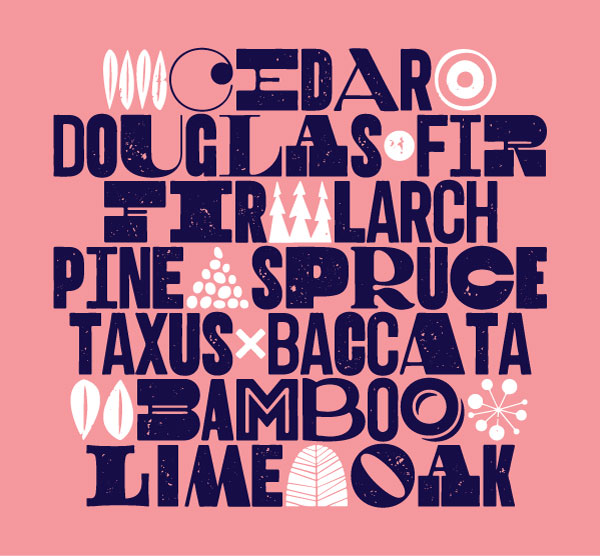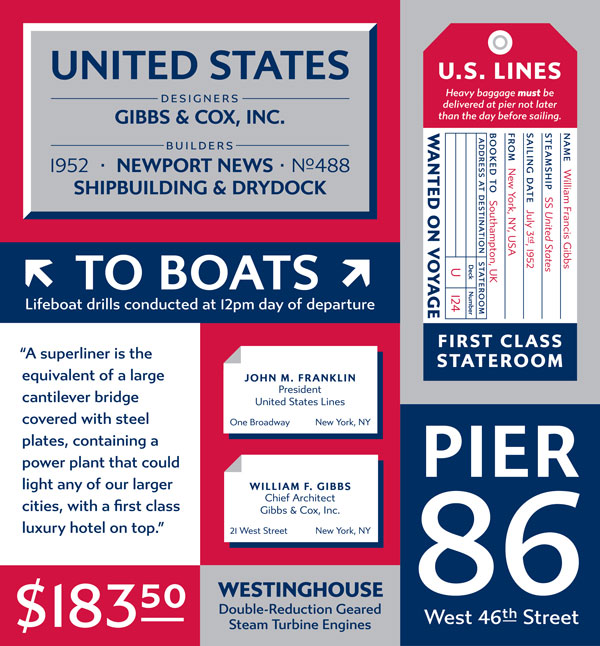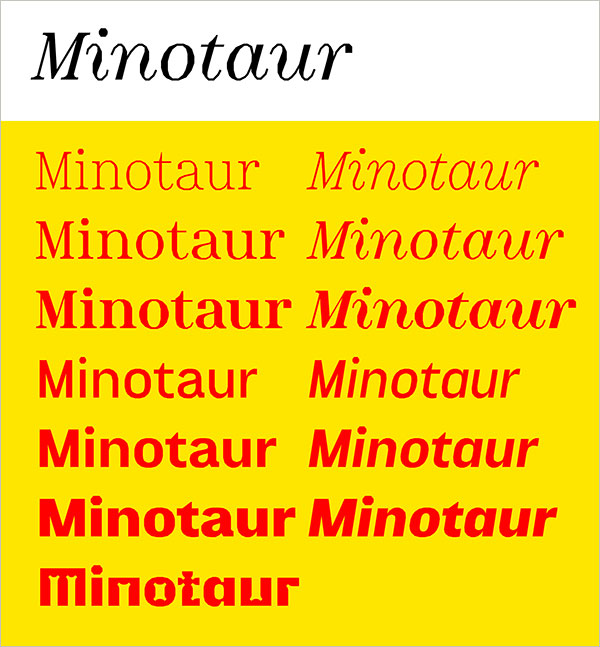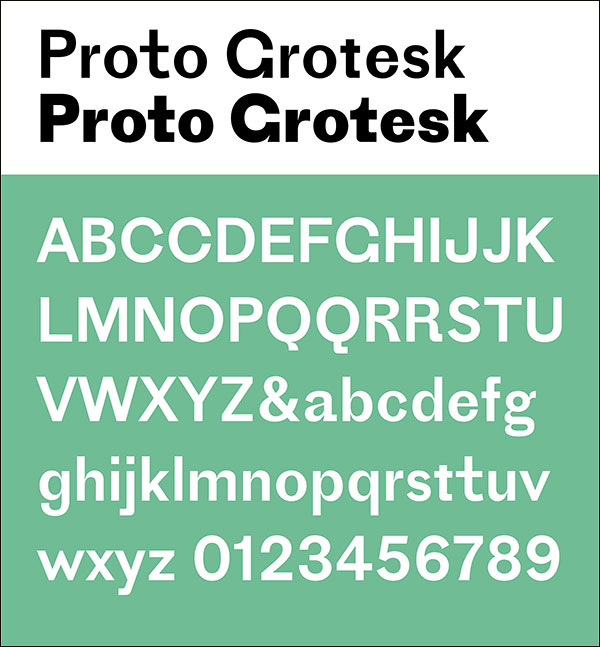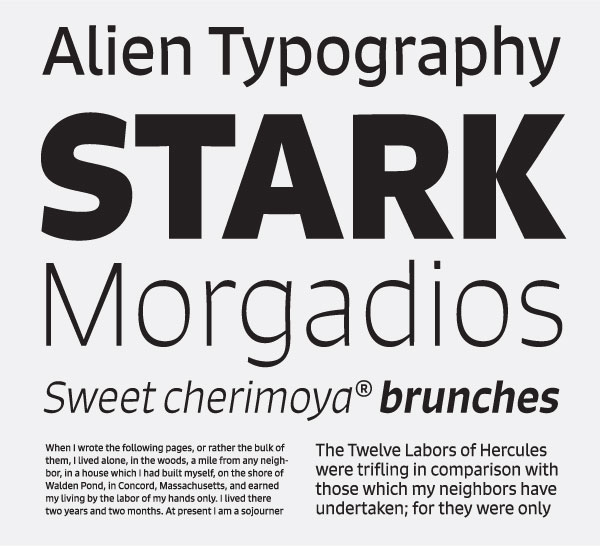
TDC Typeface Design Winners 2015
The annual Type Directors Club (TDC) Competition is one of the most prestigious, highly regarded events of its kind in the type and design world. Every year, judges from around the world gather to select the best of the previous year. The goal of this annual competition is to highlight the best typographic work from studios, companies, and individuals. It includes both professional and student work, and consists of three parts: Communication Design, Typeface Design, and the newly added Film Title Design category.
The Type Directors Club is the leading international organization whose purpose is to support excellence in typography, both in print and on screen. The Club has spent over 65 years uniting and celebrating typographic leaders from around the world. Through their annual competitions, they’re able to highlight the best of the best typographic work in both communication and typeface design, in the US and internationally.
The TDC 61 Competition consisted of over 1600 entries, from 49 countries. In the Typeface Design category, there were 22 winners selected from a total of 216 submissions from 37 countries. All winning entries will be included in the Annual of the Type Directors Club, Typography 36, and also included in eight exhibitions touring cities in the United States, Brazil, Canada, China, England, France, Germany, Japan, Poland, Russia, South Korea, Spain, Taiwan, Thailand, and Vietnam. The TDC Annual is highly respected within the design community. Many consider it the highest honor and most prestigious accomplishment to be featured on its pages. Typography 36 is being designed by Abbott Miller, Pentagram, and will be available early December.
The Jury for this year’s Type Design category consisted of Claudia de Almeida, Wired; Paul Barnes, Commercial Type; Dino Dos Santos, DST; Tal Leming, Type Supply; and Roberto de Vicq de Cumptich, De Vicq Design, Competition Chair.
Judges’ Choices
Brando, designed by Mike Abbink, was chosen by Dino Dos Santos. This 16-weight family is a contemporary serif with humanist proportions, and explores the balance between mechanical and Egyptian forms. The careful interaction of rigid and fluid strokes gives Brando its modern appeal. The light weights assume the shape of an elegant slab-serif with open letterforms, while the heavier weights feature just the right amount of contrast to give them an even texture in text. The distinctive italics strike a harmonious balance between true italics and obliques.
Domaine Sans, designed by Dave Foster and Kris Sowersby of Klim Type Foundry, was chosen by Claudia D’almeida. According to the designers, “Domaine was an exploration into the Latin typeface genre; Domaine Sans delves into another genre: sans serifs with contrast. Both the Domaine Sans Display and Fine have exuberant detail and high contrast, whereas Domaine Sans Text is more robust and pragmatic for extended text setting. The italic styles have swash cap alternates for all uppercase letters.”
GT Sectra, designed by Dominik Huber, Marc Kappeler, and Noël Leu, was chosen by Paul Barnes. GT Sectra is a contemporary serif typeface combining the calligraphy of the broad nib pen and the sharpness of the scalpel. It was originally designed for use in the long-form journalism magazine Reportagen and has now been expanded to its three subfamilies: GT Sectra, GT Sectra Fine, and GT Sectra Display.
Woodkit, designed by Ondrej Jób, was chosen by Tal Leming. Woodkit is a type system inspired by wood type and letterpress consisting of three families: Solid, Print, and Reprint, each with six distinct styles. Every single glyph fills a square. This is a reference and an homage to the physicality of the real-life wooden blocks.
Winning Entries
Big Moore, designed by Matthew Carter. This grand serif design is available in Regular and Italic, and it is intended for the largest of sizes. It was inspired by a 1766 specimen by Isaac Moore which showcased many typestyles inspired by John Baskerville. Sadly, a century later, standardization had resulted in these designs having inept lining figures and shortened descenders. Matthew Carter remedied these shortcomings with the inclusion of oldstyle figures, full-length descenders, and historic swashes.
Gibbs, designed by Gregory Shutters. Gibbs is a tough, sophisticated, 12 weight sans named for prolific maritime architect William Francis Gibbs and inspired by his greatest design, the historic luxury liner SS United States. Taking various cues from the unique cast aluminum signs found on board, the result is truly transatlantic – somewhere in between industrial American vernacular lettering and the English humanist styles of Gill or Johnston. Gibbs has enough stylish quirk to be used effectively at display sizes but is designed for comfortable reading in text.
Haltrix, designed by Daniel Sabino. Sabino’s concept for Haltrix was to head in the exact opposite direction of most script fonts – purposefully making a “masculine” script face, the starting point being the designer’s own handwriting. Every decision was made during development to make the letters as aggressive and angular as possible by avoiding curves and emphasizing straight-line segments.
Hollie Script, designed by Felipe Calderón Arteaga. Hollie Script is a typeface that pays tribute to all letterers who created amazing signs in magazines, walls, and windows, through the brush lettering during many years, especially in the ’50s and ’60s. This font is completely based on brush strokes; it has 2,100 glyphs, contextual ligatures from two to four, and characters and alternates for each ligature.
Input, designed by David Jonathan Ross. Input is a flexible system of fonts designed specifically for code. It offers both monospaced and proportional fonts, all with a large range of widths, weights, and styles for richer code formatting.
GE Inspira Sans and Serif, designed by Mike Abbink, Paul van der Laan, and Pieter van Rosmalen with Wolff Olins. These designs were commissioned by the General Electric Company in 2013. The Sans is a contemporary design with open apertures, subtle curved parts, and slightly rounded corners; its four styles work great in small sizes including low-resolution environments. The Serif features a moderate contrast, sturdy slabs, prominent ball terminals, and slightly rounded corners to help to tie the family together.
Love Script, designed by Neil Summerour. This design evolved as a way to answer the requests by individuals to turn the designer’s brush pen/marker lettering styles into a typeface. “Everything lined up perfectly, and there was a renewed impetus to push this genre, and this style of lettering I have adapted over the years into what will become a series of brush pen/marker typefaces. The first I chose to complete was a high-contrast variant.”
Minotaur, designed by Jean-Baptiste Levée. Minotaur Sans and Serif are designs based on straight lines inspired by the Cubist movement. Despite their seemingly primitive restraints, these typestyles are legible at any size. Minotaur Serif, in particular, balances its harsh contours with the elegant skeleton of its early-twentieth-century model.
Proto Grotesk, designed by Jean-Baptiste Levée. Drawn from an early German sans serif used for catalog text, Proto Grotesk hails from an era when clunkiness was a virtue. Its pedigree is varied, vacillating between Egyptian and Modern, round and edged, even sans and slab. Despite these contradictions, its appearance is nothing less than sturdy and forthright. Proto Grotesk is strange but steady.
Signo, designed by Rui Filipe Alves Abreu. This dynamic sans serif with reverse contrast was designed for editorial and branding. Signo is a charismatic typeface for headlines, but its tall x-height and open counters also allow it to perform well in small sizes, resulting in a versatile typeface across weights. The cursive italics are a lively complement to the roman fonts, and add variety and warmth to the page.
Valter, designed by Nikola Djurek. This graceful and slightly cheeky collection of sans serif display fonts was inspired by pointed-pen writing. Constructed on a monolinear skeleton, it offers seven weights that incrementally increase the contrast between the horizontal and vertical strokes. The thin styles appear wider, while the heavier weights feel normally proportioned, as only the interiors of the letters gain weight.
A23D, designed by Henrik Kubel and Scott Williams of A2-Type. This is a 3D-printed custom alphabet for letterpress printing. A23D was originally designed for New North Press, who was on a mission to bring letterpress into the 21st century by combining the oldest form of print technology with the very latest innovations.
Lale, designed by Michael Parson. This floral dingbat typeface was inspired by the intricate designs created during the Ottoman Empire, and still visible today throughout Turkey. The designer’s aim was to enhance so-called “picture” or symbol fonts by using the possibilities that OpenType scripts offer designers. By combining the substitution features included in ligatures, this typeface not only offers the basic fifty-two signs of the Latin alphabet found in most designs but also plays with various glyph combinations to offer 156 different floral motifs that can then be combined with thirty different stems. The result is more than 4,800 design solutions that can be easily accessed by a repeated sequence of letters or numbers.